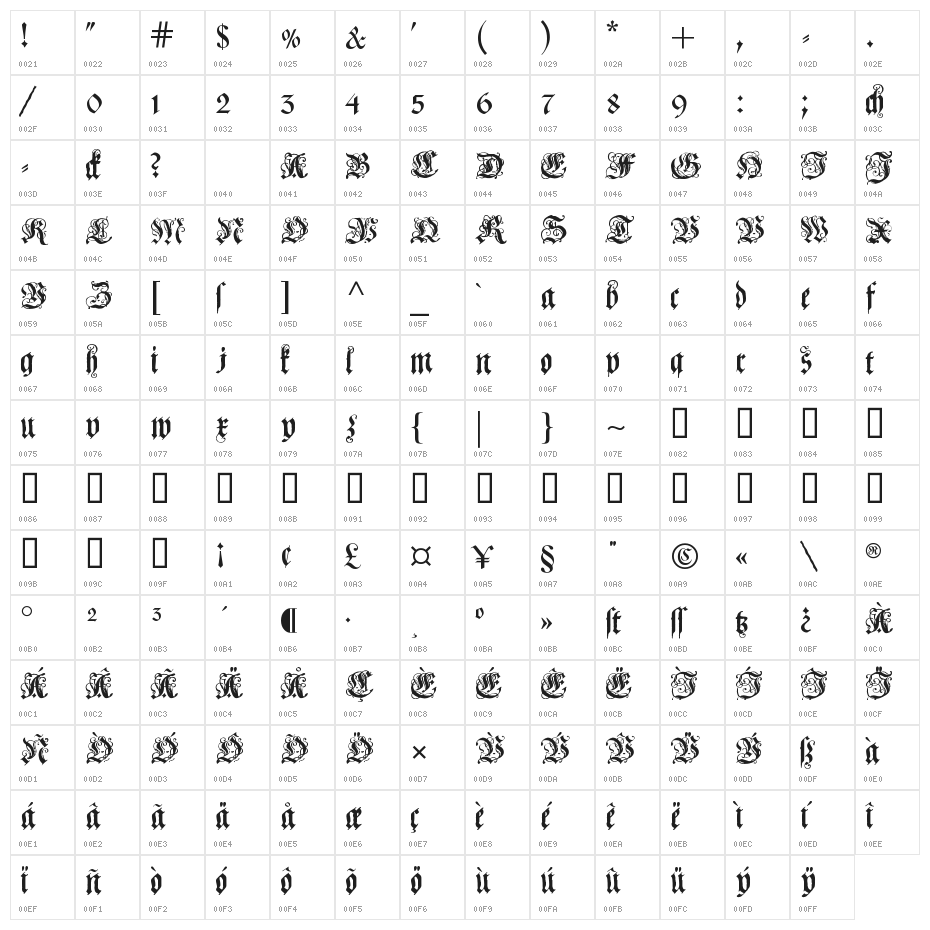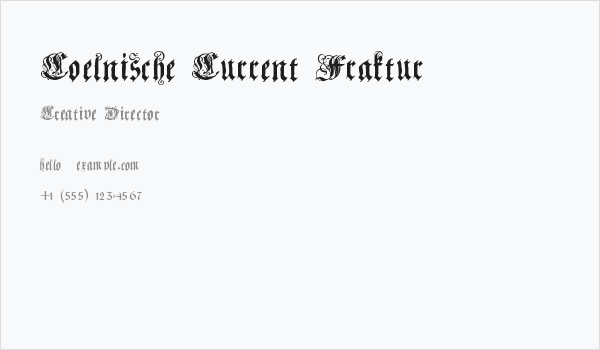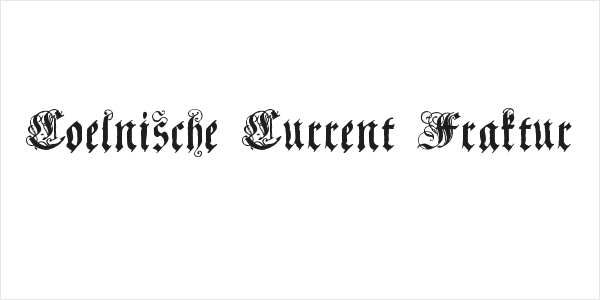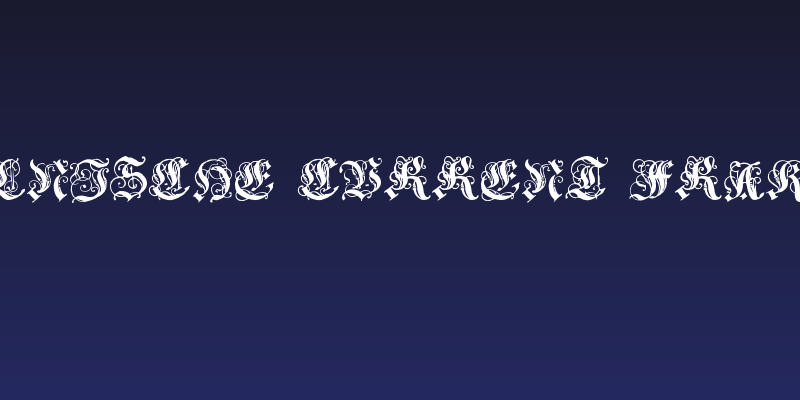
Coelnische Current Fraktur Font
Coelnische Current Fraktur Description
This font exhibits a classic Blackletter style, characterized by its ornate and intricate design. The uppercase letters are highly decorative, with elaborate flourishes and sharp, angular lines that give it a historic and gothic appearance. The lowercase letters maintain the traditional Blackletter form, with a strong vertical emphasis and pointed serifs. The numerals are consistent with the overall style, featuring sharp edges and a bold presence. Special characters are equally ornate, fitting seamlessly into the font's aesthetic. This typeface evokes a sense of tradition and formality, making it suitable for projects that require a touch of historical elegance.
| Use Case | Headlines, Logos, Decorative text |
| Proposed Projects | Ideal for historical documents, certificates, wedding invitations, book covers, and branding that requires a classic and formal touch. |